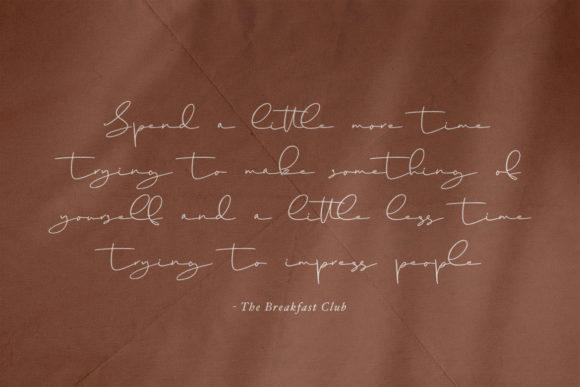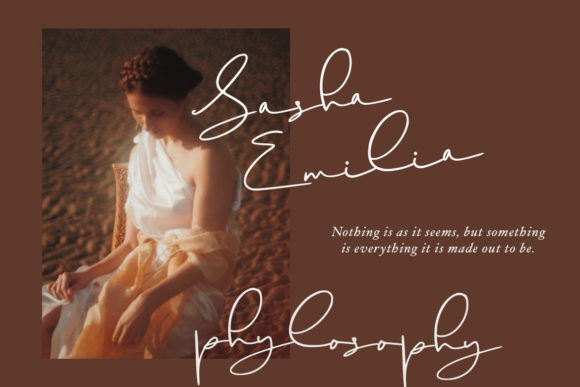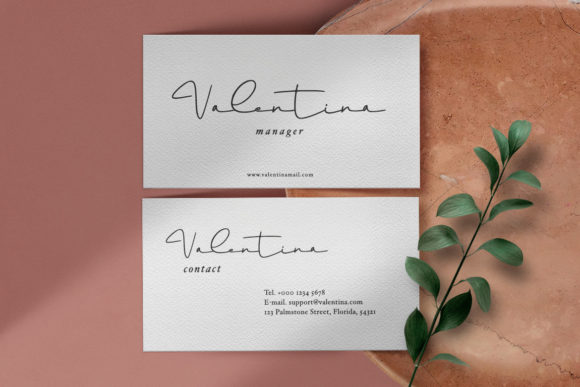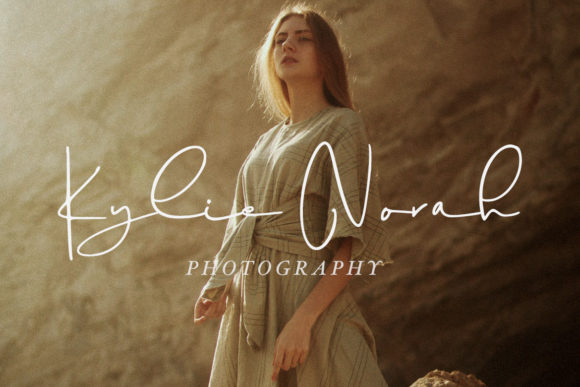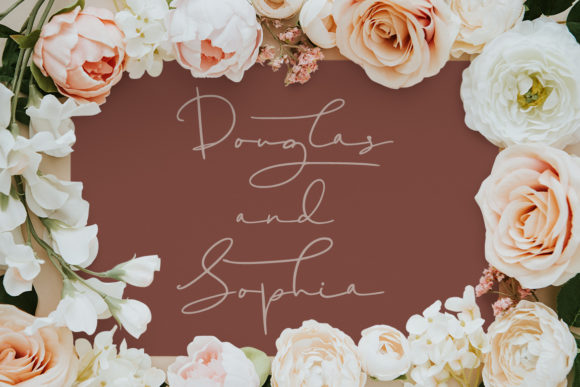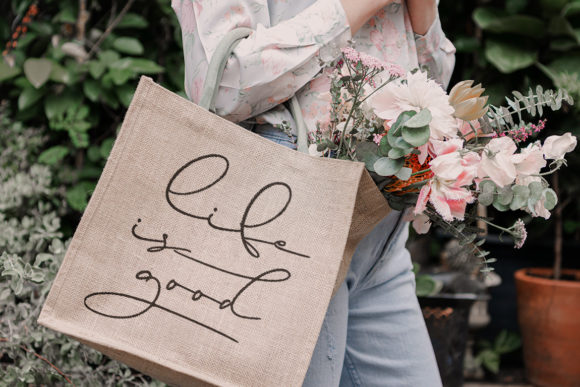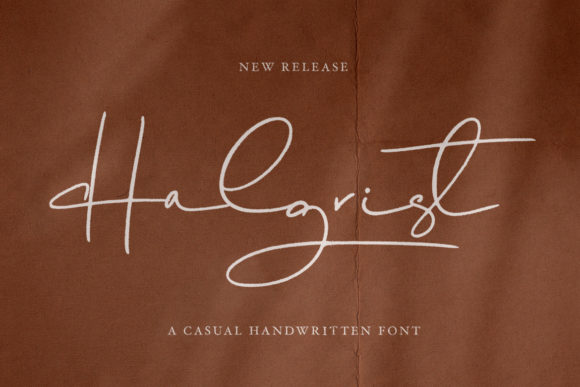
Introducing Halgrist Font: The Epitome of Elegance and Sophistication
In the realm of typography, few fonts manage to strike a balance between elegance and versatility. Halgrist font, however, stands out as a beacon of refinement, offering a unique blend of thin and elegant handwritten characteristics. This exquisite font is poised to elevate a wide array of design projects, making it an indispensable tool for designers and crafters alike.
The Characteristics of Halgrist Font
Halgrist is distinguished by its remarkably thin and elegant strokes, which lend an air of sophistication to any design. This handwritten font exudes a personal touch, making it perfect for projects that demand a level of intimacy and connection. The fluidity and grace of Halgrist’s letters make it an excellent choice for designs that require a high degree of readability and aesthetic appeal.
Versatility at Its Finest: Diverse Applications of Halgrist Font
One of the standout features of Halgrist font is its incredible versatility. Its applications span a broad spectrum of design projects, including:
- Logos & Branding: Infuse your brand with a touch of elegance and sophistication, setting it apart in a crowded market.
- Invitations: Create stunning invitations for special occasions such as weddings, parties, and corporate events.
- Stationery: Elevate your personal or business stationery with a font that speaks of refinement and class.
- Wedding Designs: From wedding invitations to ceremony programs, Halgrist adds a romantic and delicate touch.
- Social Media Posts: Stand out on social media platforms with elegant and engaging posts.
- Advertisements: Capture the attention of your audience with ads that exude luxury and sophistication.
- Product Packaging: Make your product packaging memorable and distinctive.
- Product Designs: Incorporate Halgrist into your product designs for an added layer of aesthetic appeal.
- Labels: Whether for products, files, or any other use, Halgrist labels are sure to impress.
- Photography: Use Halgrist as a watermark or overlay to add a professional touch to your photos.
- Special Events: Create memorable event branding, signage, and materials with Halgrist.
Why Choose Halgrist Font?
Choosing Halgrist font for your design projects comes with numerous benefits:
- Elegance: It adds a level of elegance and sophistication that is hard to match.
- Versatility: Its wide range of applications makes it a valuable addition to any designer’s toolkit.
- Readability: Despite its thin strokes, Halgrist maintains excellent readability across various sizes and mediums.
- Uniqueness: Stand out from the crowd with a font that is both distinctive and stylish.
Tips for Using Halgrist Font Effectively
To maximize the impact of Halgrist font in your designs:
- Pair with Complementary Fonts: Combine Halgrist with bold or sans-serif fonts for contrast and visual interest.
- Adjust Line Spacing: Ensure adequate line spacing to maintain readability, especially in longer texts.
- Experiment with Colors: While Halgrist looks stunning in black or dark colors, don’t hesitate to experiment with other hues to match your brand or design theme.
Halgrist font is more than just a typeface; it’s a design statement that speaks of elegance, sophistication, and versatility. Whether you’re a professional designer or a crafty DIY enthusiast, Halgrist offers a world of creative possibilities. By incorporating Halgrist into your projects, you’re not just choosing a font; you’re elevating your design to new heights of aesthetic excellence.